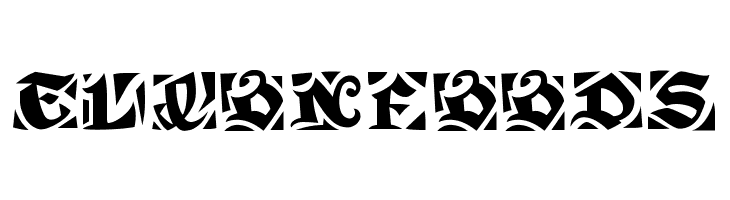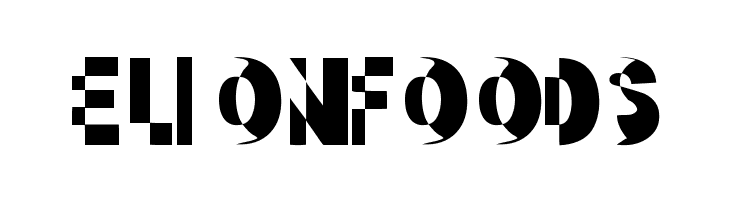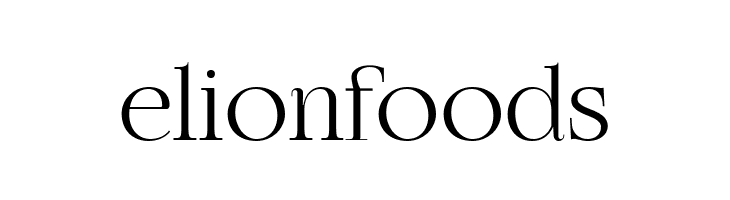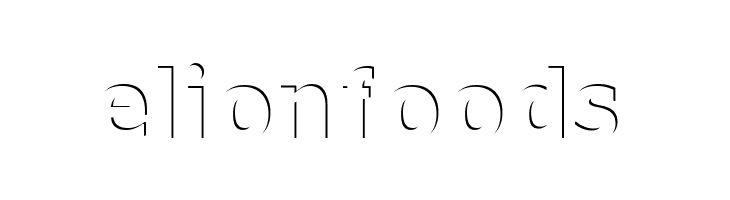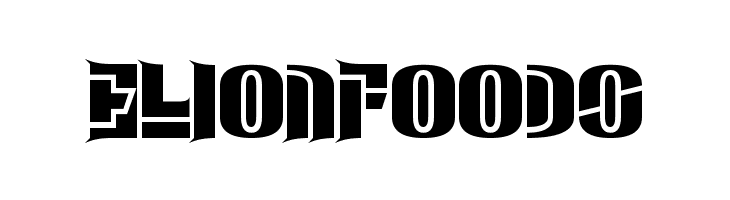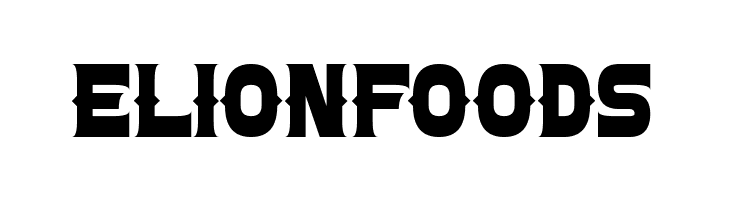
A bold, geometric font with intricate cutouts and sharp angles for a striking, modern look.
A bold, geometric font with sharp angles and unique cutouts.
A refined serif font with high contrast and elegant curves.
A modern, stencil-like font with geometric lines and strategic cutouts.
A bold, dramatic font with sharp angles and geometric cutouts.
A bold, Western-style font with sharp angles and unique cutouts.